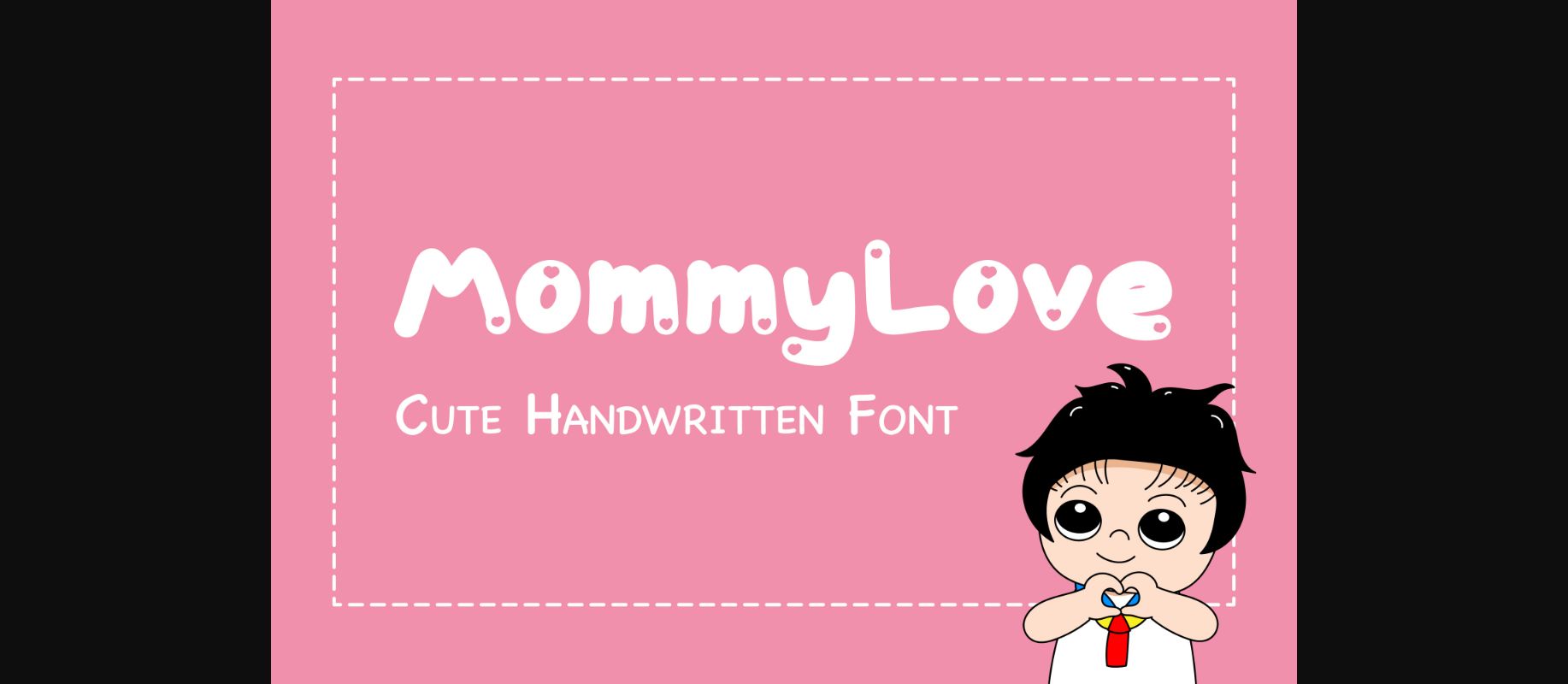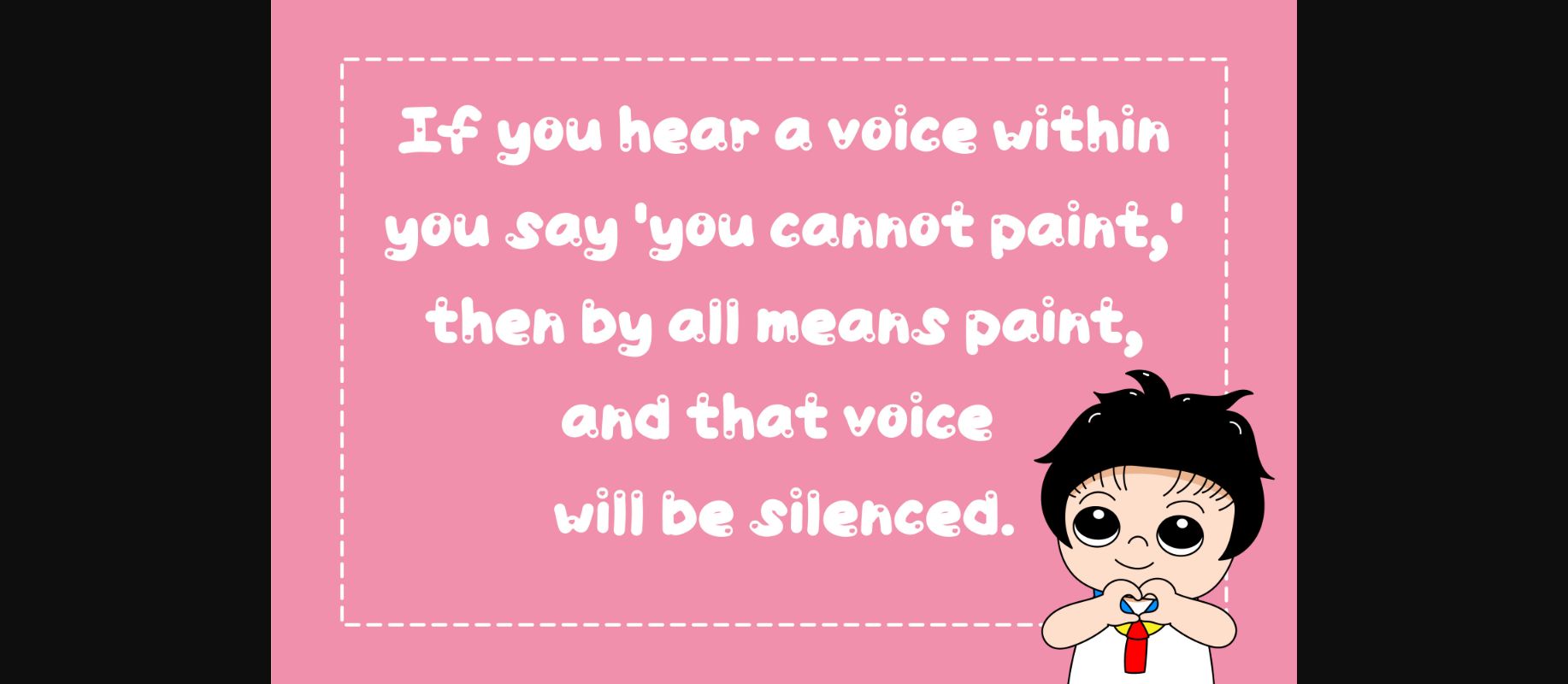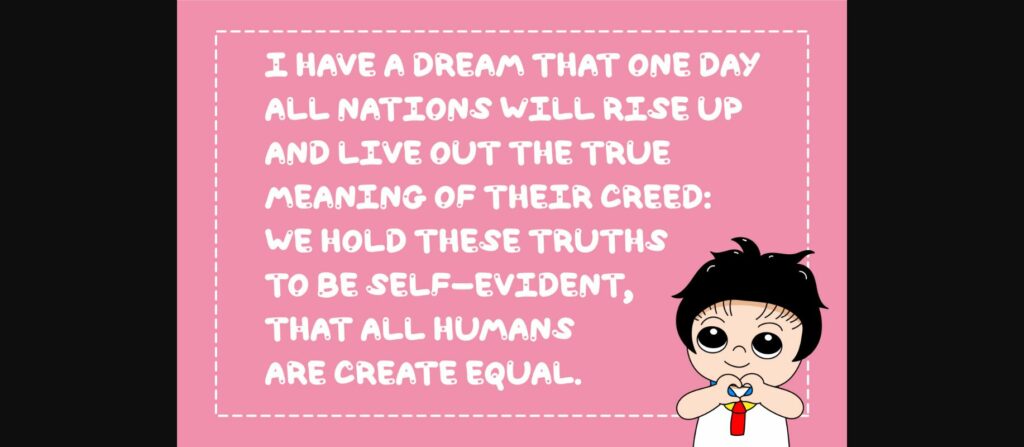
About Mommy Love Font
Cute Handwritten Child Font – MommyLove
This cute, jolly, unique, and decorative child font will make your creative works brighten up and stand out!
With this Cute Handwritten Child font style, it will help your creative ideas and artwork look trendy.
This Cute Handwritten Child Font can be used perfectly for any of your creative design projects, such as:
– Kids-related products (educational resources, cartoon-related designs, children’s games, or any creation that requires lovely touch, and more)
– Printed paper stationery (tags, wrapping paper, packaging, wedding invitations, greeting cards, business cards, paper scrapbooking, posters, and more)
– Digital material for your works or social media channels (blogs, quote, presentations, banners, posters, and more)
– Home decor (pillows, towels, napkins, pretty quotes wall art, and more)
– Fashion (t-shirts, totes, aprons, and more)
– Other DIY projects
This cute, jolly, unique, and decorative child font will make your creative works brighten up and stand out!
With this Cute Handwritten Child font style, it will help your creative ideas and artwork look trendy.
This Cute Handwritten Child Font can be used perfectly for any of your creative design projects, such as:
– Kids-related products (educational resources, cartoon-related designs, children’s games, or any creation that requires lovely touch, and more)
– Printed paper stationery (tags, wrapping paper, packaging, wedding invitations, greeting cards, business cards, paper scrapbooking, posters, and more)
– Digital material for your works or social media channels (blogs, quote, presentations, banners, posters, and more)
– Home decor (pillows, towels, napkins, pretty quotes wall art, and more)
– Fashion (t-shirts, totes, aprons, and more)
– Other DIY projects